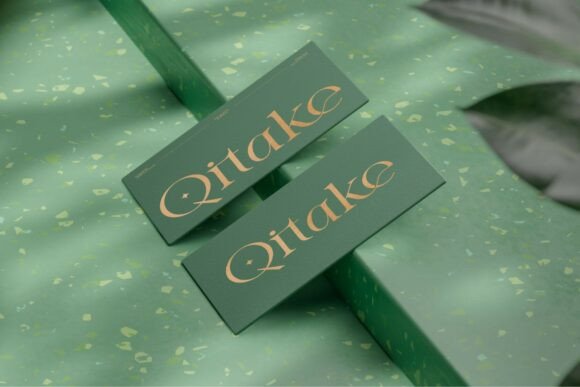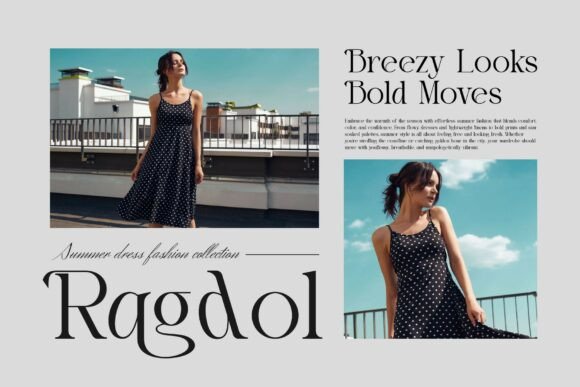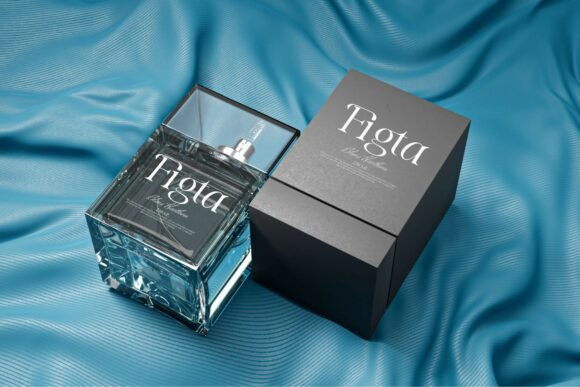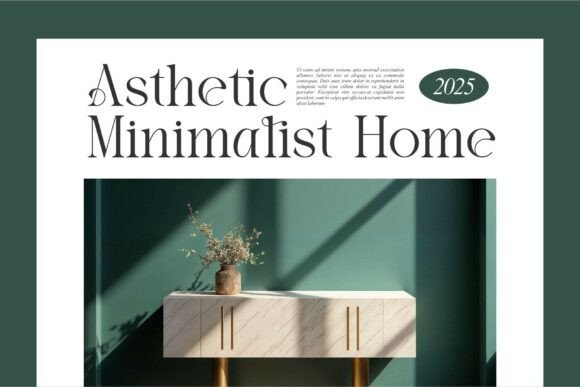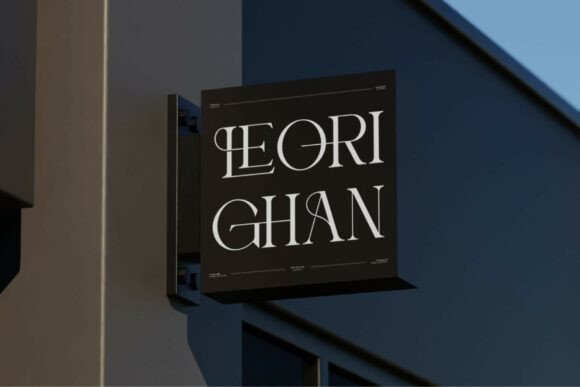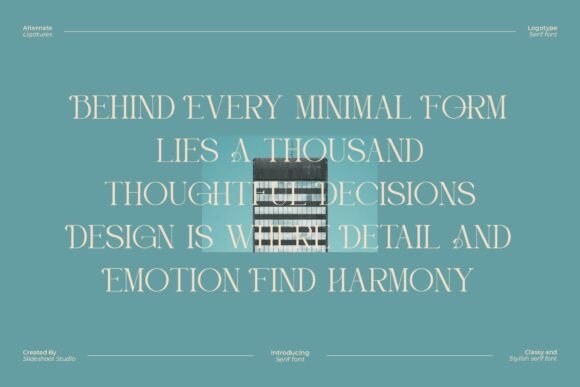
Introduction to Eiden Font
Eiden Serif is a modern, elegant serif typeface designed to elevate branding and logo projects with refined sophistication.
Characterized by smooth contours and a graceful presence, this font blends classic structure with contemporary charm Its thoughtfully designed ligatures and stylish letterforms make it a standout choice for a wide range of applicationsโfrom invitation cards and business cards to book covers, movie titles, brand identities, and more.
Key Features of Eiden Font
Why Choose Eiden Font?